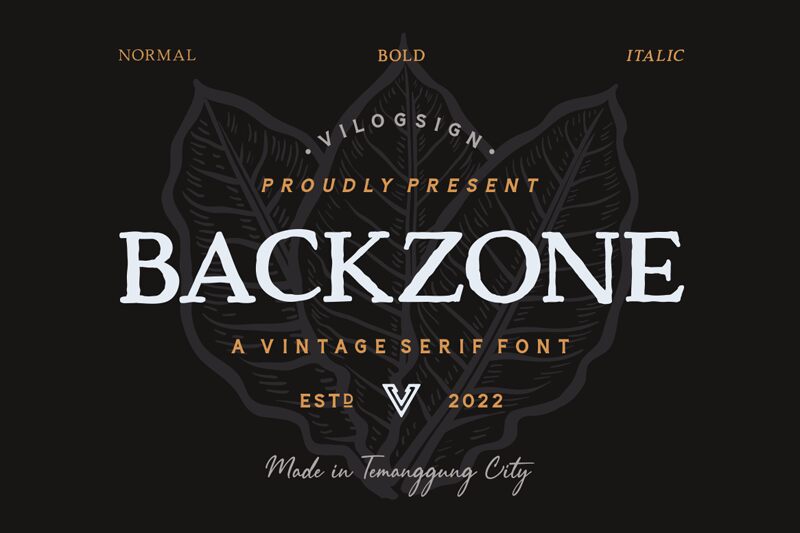
Backzone DEMO Bold
Backzone Bold font by vilogsign is a display font with eroded visual elements. Inspired by vintage typography styles, its textural ruggedness has an overall warm and inviting mood. This free all-caps typeface is made by hand to ensure originality and a one-of-a-kind feel for the characters.
This font has retro or grunge vibes which makes it suitable for outdoor product labels, artistic magazine backgrounds, band artwork covers, album covers, Google slides presentations (online or offline), finest posters ideas among many others.